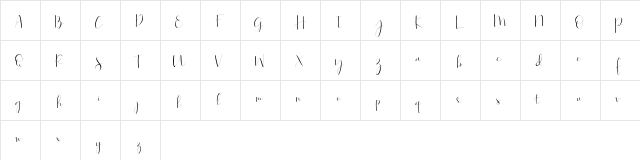
Roselyne Regular
| Foundry | dharmas |
| Designer | Jamaludin |
Design Context for Roselyne Typeface
Roselyne takes a measured approach to typography — its balanced proportions and neutral character make it a reliable workhorse for both digital and print work.